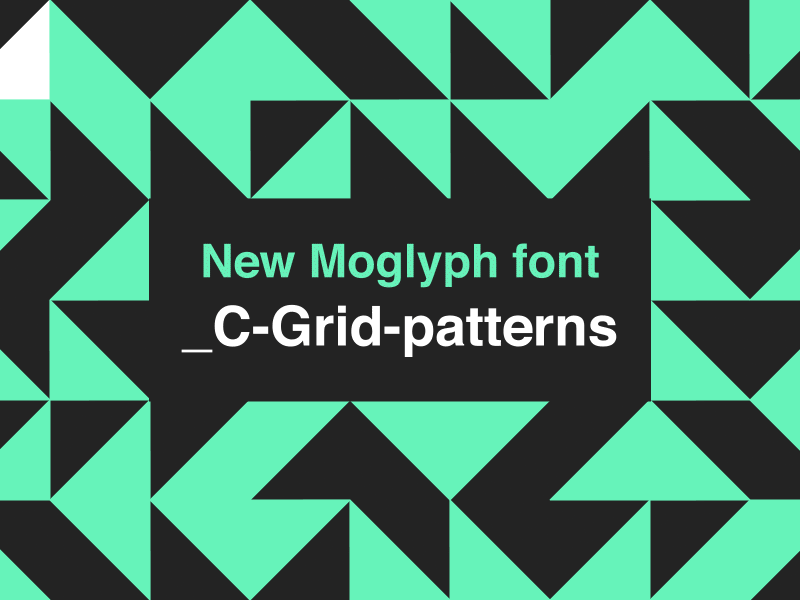
"C-Grid-patterns" - A new font for MoglyphFX
I've just updated my MoglyphFX procedural cloning and animation toolset for AfterEffects ! It now offers a brand new "Moglyph-C_Grid-patterns" font that contains a lot of interesting tileable squared shapes variations, that will allow you to create really cool patterns within After Effects !